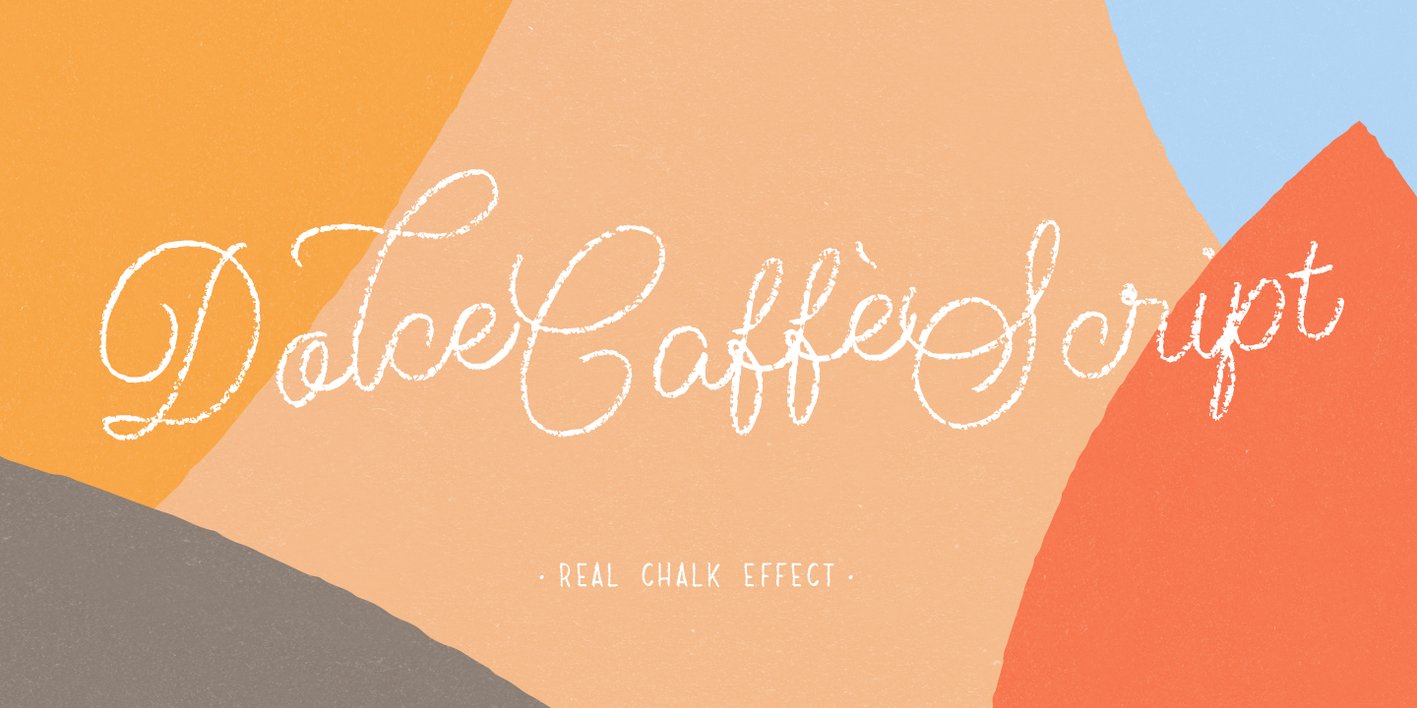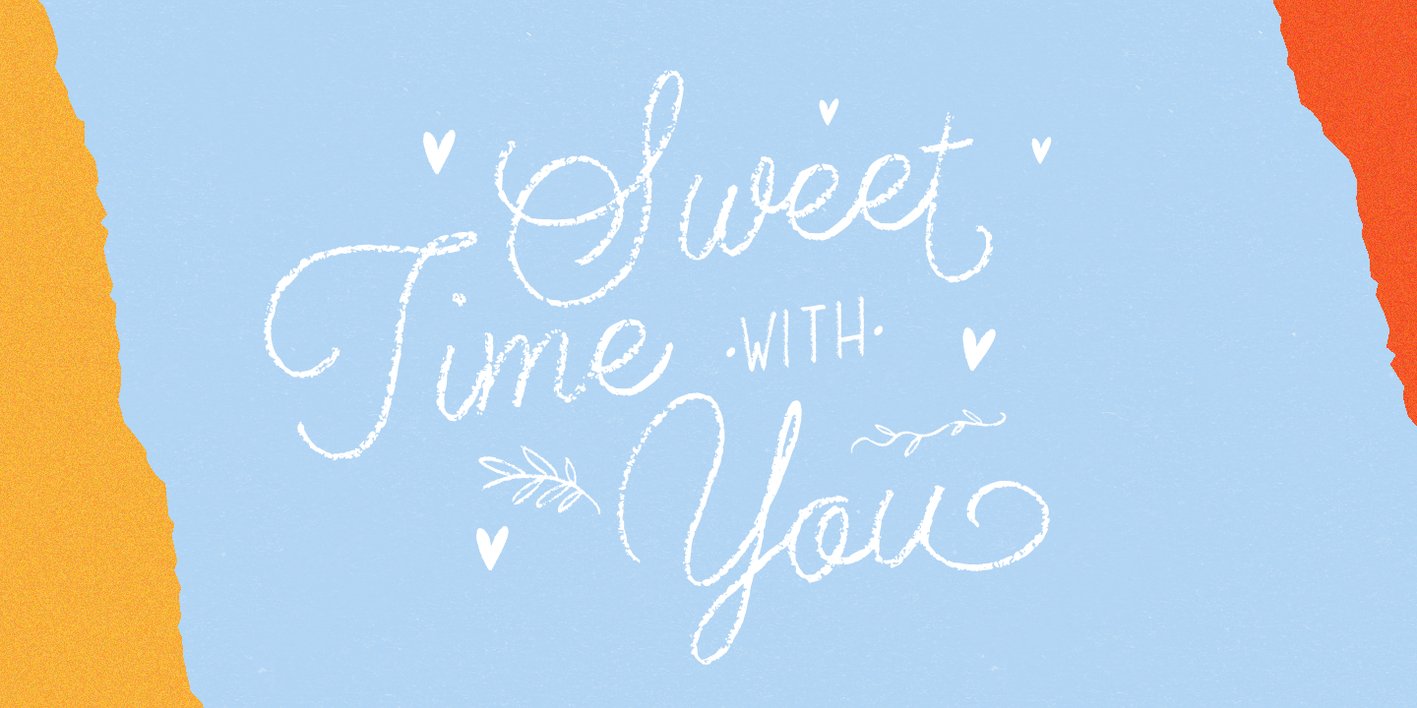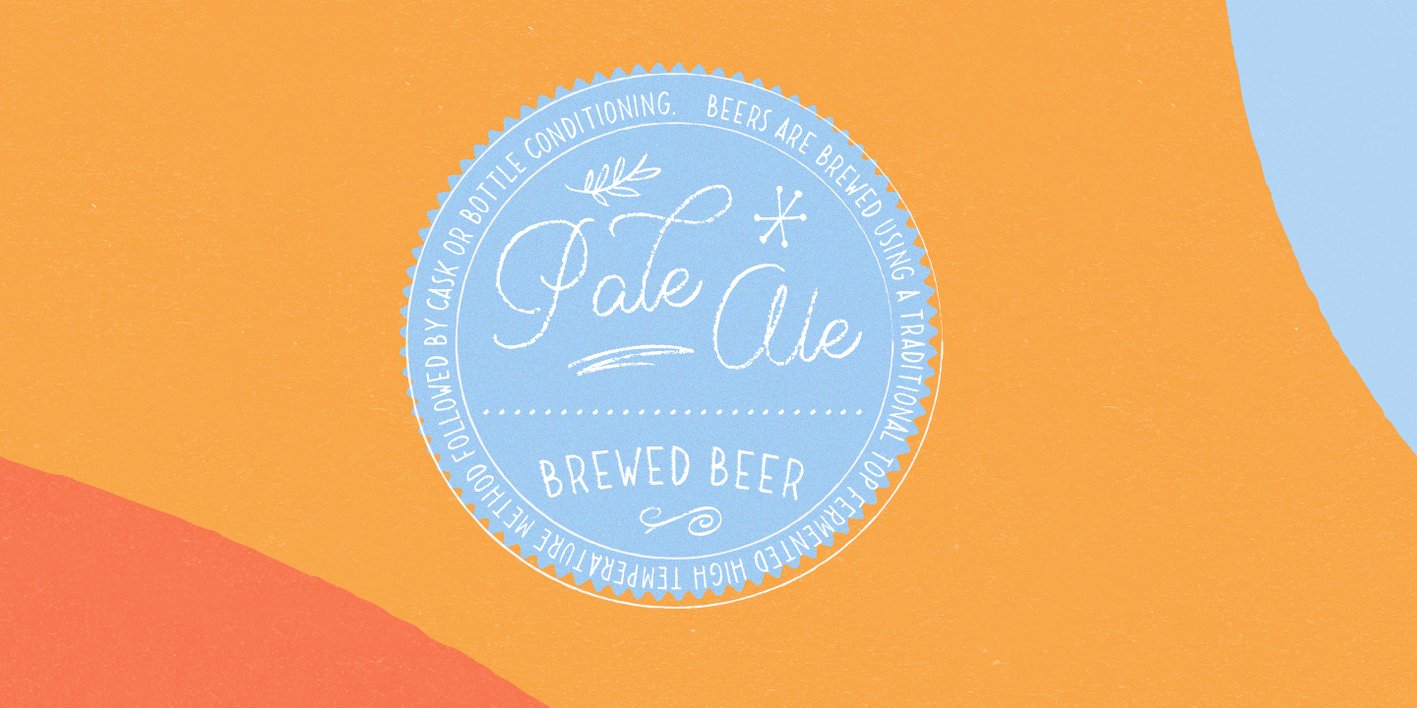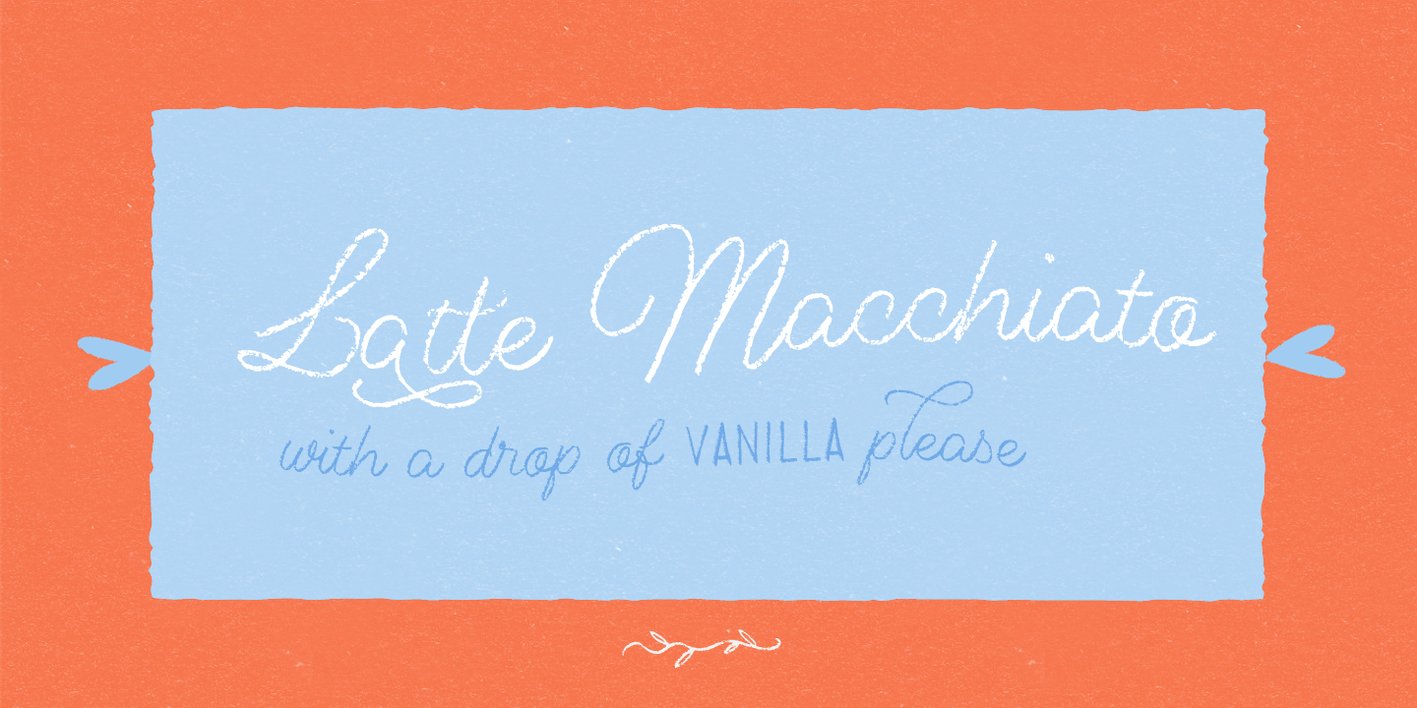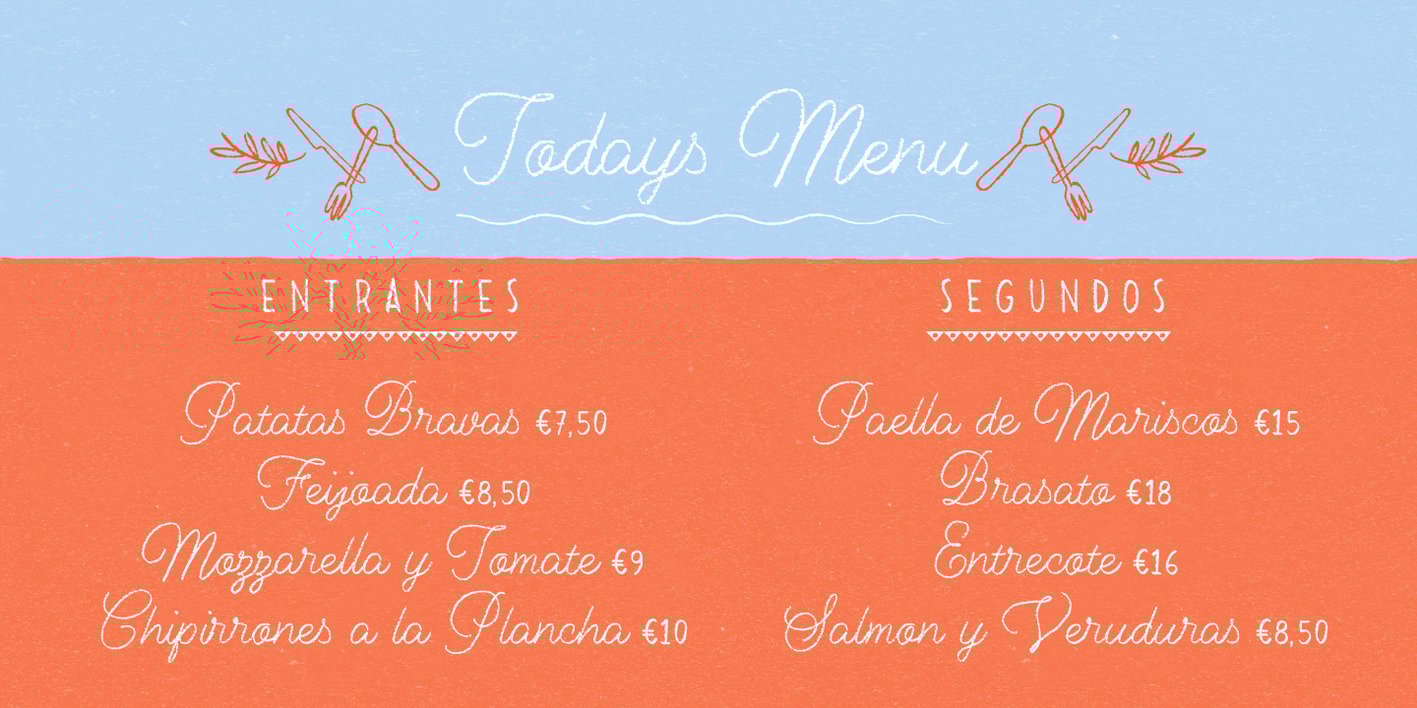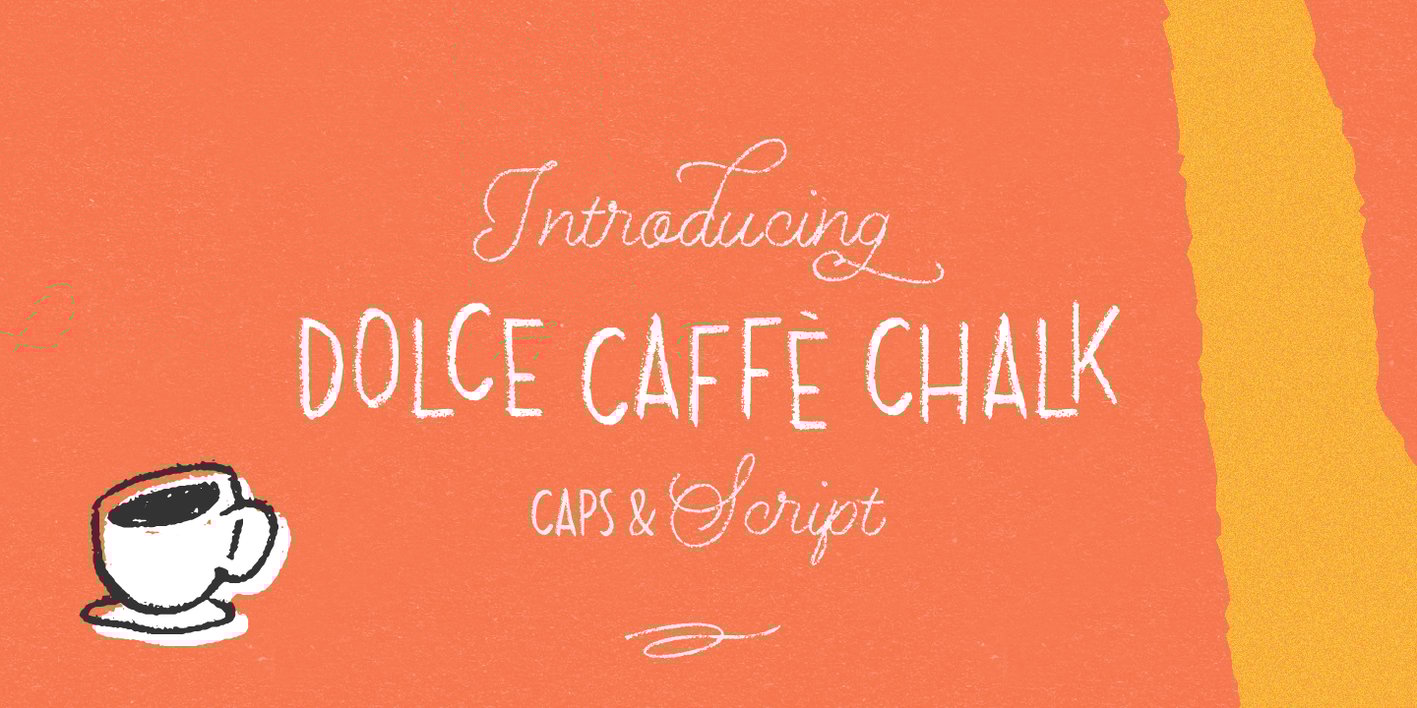
Dolce Caffe Chalk Font
Dolce Caffe Chalk Font is perfect for coffee shop chalkboard menus, café signage design, artisan bakery displays, rustic restaurant boards, cozy bistro materials, handwritten menu designs, coffee roastery branding, specialty drink promotions, warm café atmospheres, Italian coffee house graphics, barista training materials, and charming projects that require authentic, chalk-inspired typography with café warmth and artisanal handcrafted appeal.
What makes Dolce Caffe Chalk Font so exciting is its authentic chalkboard charm and café warmth that embodies the cozy atmosphere and artisanal character of traditional coffee houses and neighborhood cafés. This typeface features handwritten letterforms with chalk-textured characteristics and organic variations that evoke the personal touch of hand-lettered chalkboard signs and the intimate atmosphere of local coffee culture. The font's café character and artisanal appeal make it perfect for coffee businesses and food service establishments that want to communicate warmth, authenticity, and the kind of personal hospitality that makes neighborhood cafés truly special gathering places.
Whether you're designing coffee shop materials, artisan food branding, or cozy restaurant communications, Dolce Caffe Chalk Font delivers exceptional café authenticity and chalkboard charm that connects with customers who appreciate handcrafted quality and neighborhood coffee culture. Its textured, handwritten appearance works beautifully with warm color palettes and rustic café imagery, creating designs that feel both authentically artisanal and professionally welcoming.
The lovingly crafted letterforms of Dolce Caffe Chalk Font demonstrate deep understanding of café typography and handcrafted design principles. Each character has been designed to capture the organic beauty and personal touch of hand-lettered chalkboard signs while maintaining excellent readability, making it particularly valuable for food service communications where typography must convey both artisanal authenticity and clear menu information.